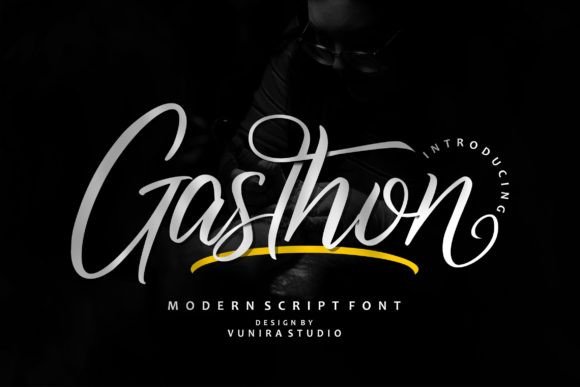
Introducing Gasthon Font: Elevate Your Designs with Modern Sophistication
In the world of typography, fonts play a crucial role in conveying the tone and personality of a design. For designers and crafters looking to add a touch of elegance and modernity to their projects, Gasthon Font is an excellent choice. This stylish modern script font seamlessly blends sophistication with a contemporary vibe, making it perfect for a wide range of creative applications.
The Characteristics of Gasthon Font
Gasthon is a modern script font that boasts flowing, connected strokes, which give it a dynamic and fluid appearance. Its sleek and trendy design makes it an ideal choice for designers looking to add a polished and engaging look to their text. The font’s versatility and ease of use make it suitable for various creative projects, from invitations and branding to packaging and digital media.
Key Features of Gasthon Font
- Modern Script Design: Gasthon’s script design is perfect for creating modern and eye-catching text that stands out from the crowd.
- Flowing Connected Strokes: The font’s connected strokes give it a fluid and dynamic appearance, making it perfect for creating elegant and sophisticated text.
- Versatile and Easy to Use: Gasthon is designed to be versatile and easy to use, making it suitable for a wide range of creative projects.
- Perfect for Invitations and Branding: The font’s elegant and modern design makes it perfect for creating stunning invitations, branding materials, and packaging.
Why Choose Gasthon Font?
With so many fonts available, why choose Gasthon? Here are a few reasons why Gasthon stands out from the rest:
- Unique and Modern Design: Gasthon’s modern script design is unique and eye-catching, making it perfect for designers looking to create stunning text.
- Elegant and Sophisticated: The font’s flowing connected strokes give it an elegant and sophisticated appearance, making it perfect for creating high-end designs.
- Highly Versatile: Gasthon is highly versatile and can be used for a wide range of creative projects, from invitations and branding to packaging and digital media.
- Easy to Use: The font is easy to use and can be easily integrated into your design workflow.
Using Gasthon Font in Your Designs
Gasthon is a highly versatile font that can be used in a variety of creative projects. Here are a few ideas for using Gasthon in your designs:
- Invitations: Use Gasthon to create stunning invitations for weddings, parties, and other special events.
- Branding: Use Gasthon to create elegant and modern branding materials, such as logos, business cards, and letterheads.
- Packaging: Use Gasthon to create eye-catching packaging that stands out on store shelves.
- Digital Media: Use Gasthon to create engaging and modern digital media, such as social media graphics and website headers.
Tips for Getting the Most Out of Gasthon Font
Here are a few tips for getting the most out of Gasthon:
- Experiment with Different Sizes: Experiment with different font sizes to create visual interest and hierarchy in your designs.
- Play with Color: Play with different colors to create a unique and eye-catching look.
- Use it with Other Fonts: Use Gasthon with other fonts to create a unique and visually appealing combination.
In conclusion, Gasthon Font is a stylish modern script font that effortlessly combines sophistication with a contemporary vibe. Its flowing connected strokes, versatility, and ease of use make it perfect for a wide range of creative projects. Whether you’re a designer or crafter looking to add a touch of elegance and modernity to your designs, Gasthon is an excellent choice. With its unique and modern design, elegant and sophisticated appearance, and high versatility, Gasthon is sure to elevate your designs to the next level.